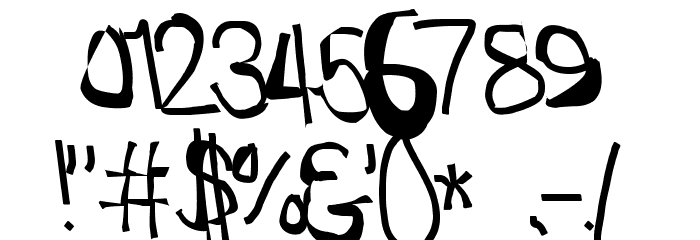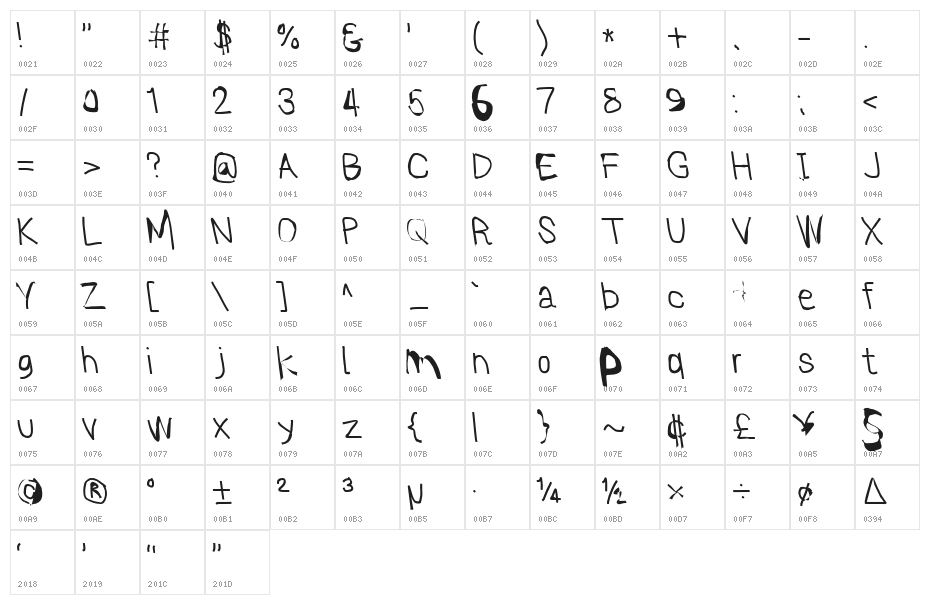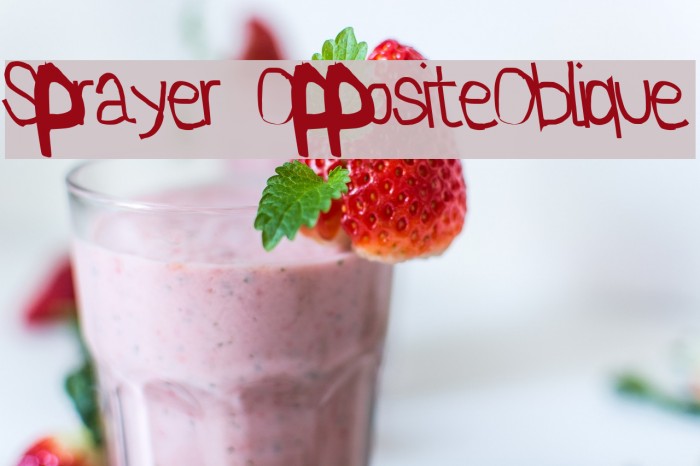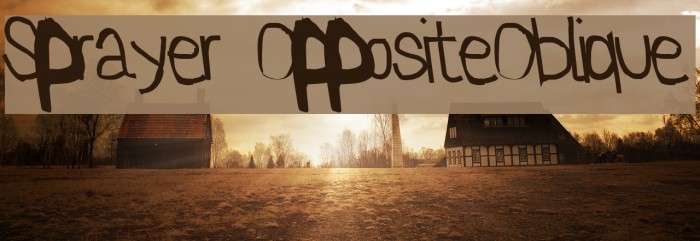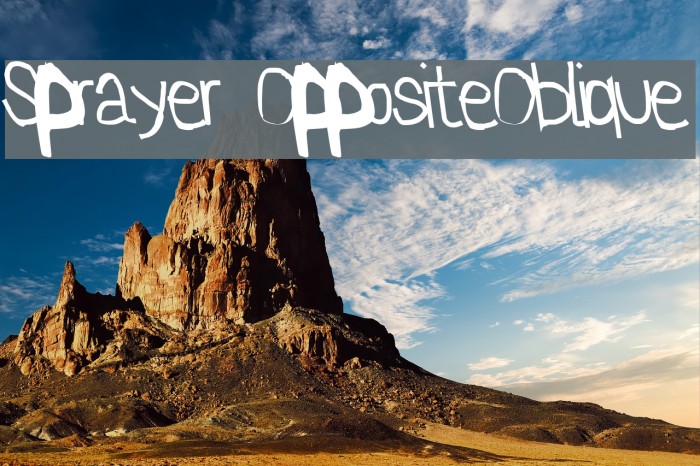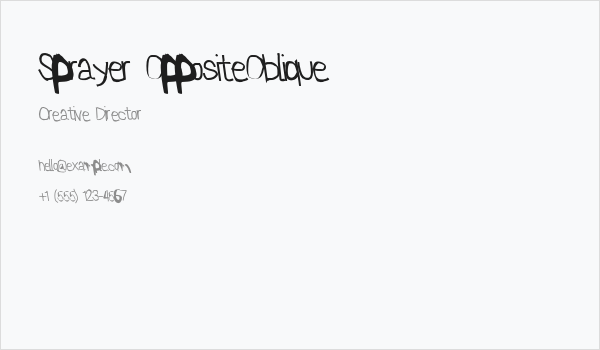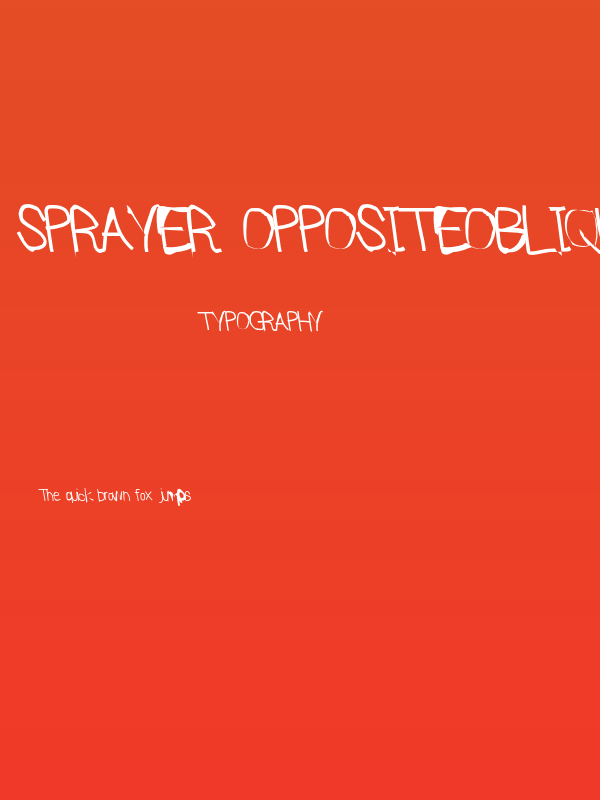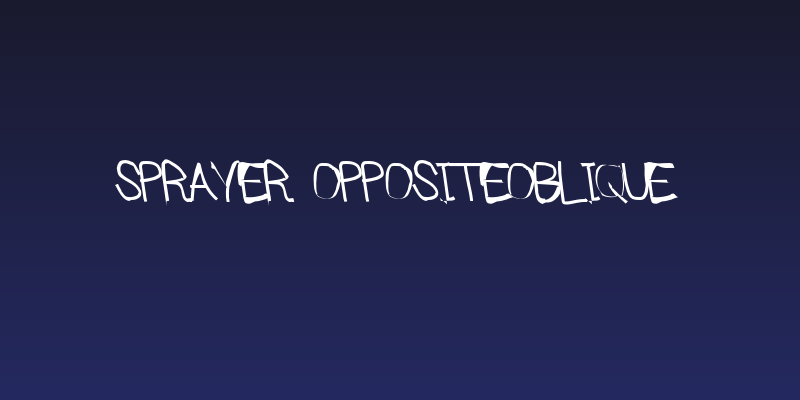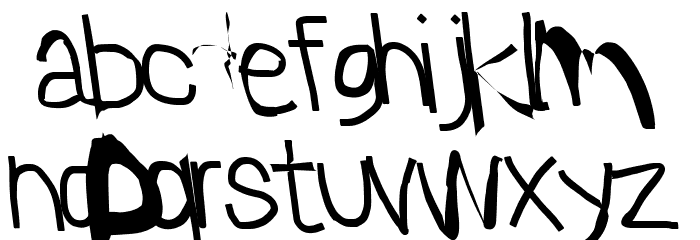
Sprayer OppositeOblique Font
Sprayer OppositeOblique Description
This font exhibits a bold and expressive style, characterized by its irregular, hand-drawn appearance. The strokes are uneven and dynamic, giving it a graffiti-like aesthetic. The uppercase and lowercase letters share a consistent, playful energy, with some characters featuring exaggerated curves and angles. Numbers and special characters maintain the same artistic flair, making the font suitable for creative and informal applications. The overall look is both chaotic and artistic, capturing attention with its unique and unconventional design.